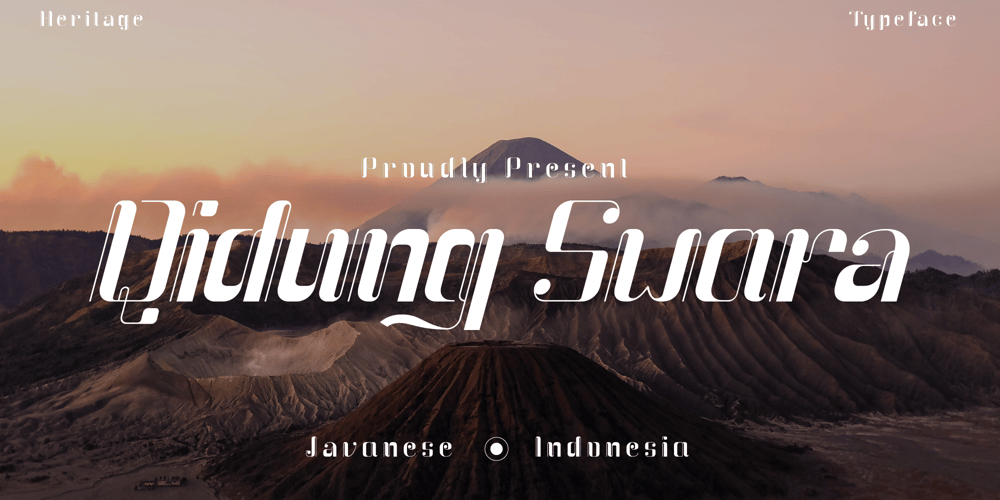
Qidung Swara Font Family was designed by Irfan Hidayat and published by Creative17studio. Qidung Swara contains 2 styles and family package options. Qidung Swara is a heritage typeface. Inspired by Aksara Jawa, character that has its own uniqueness and privilege.Qidung Swara was created to support use in all designs, such as branding, magazines, advertising brochures, music album covers and other uses.Qidung Swara also support multilingual language.Available in 2 styles:Regular and Italic.Grab this exclusive and awesome font fast. Don’t miss it.Any question?Jusk Ask.Free updateThank You